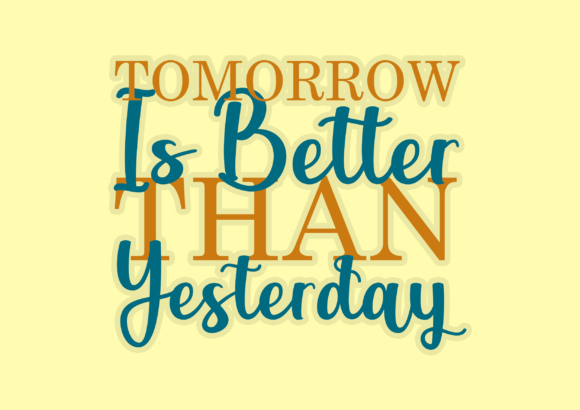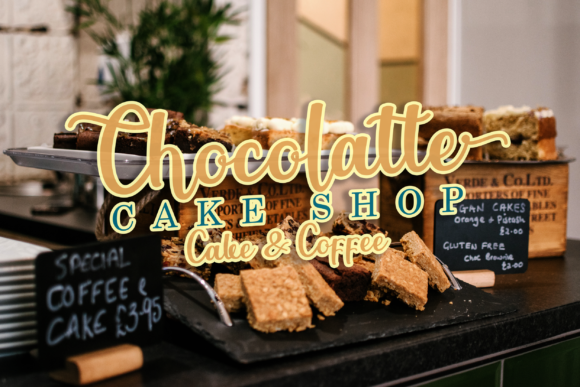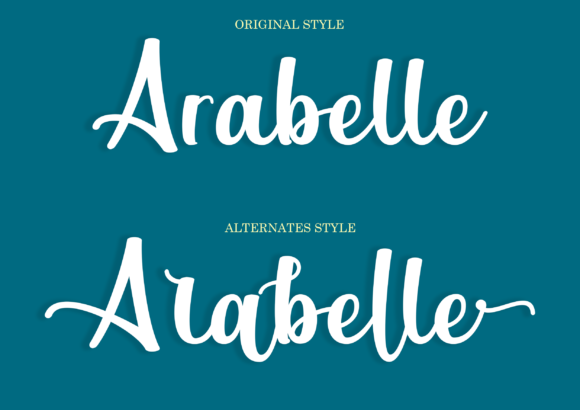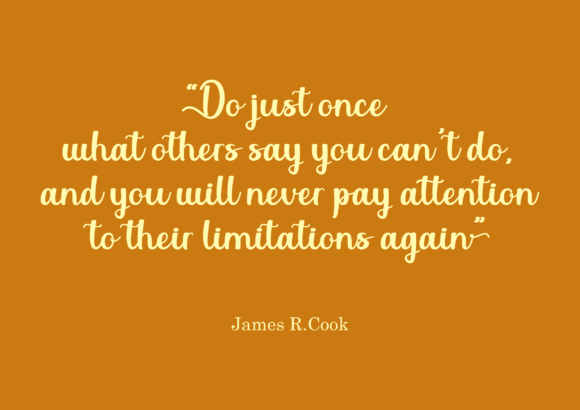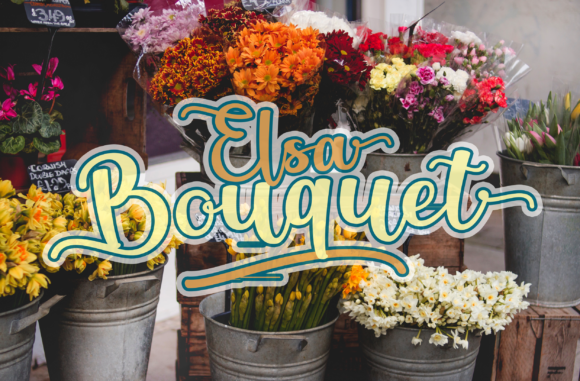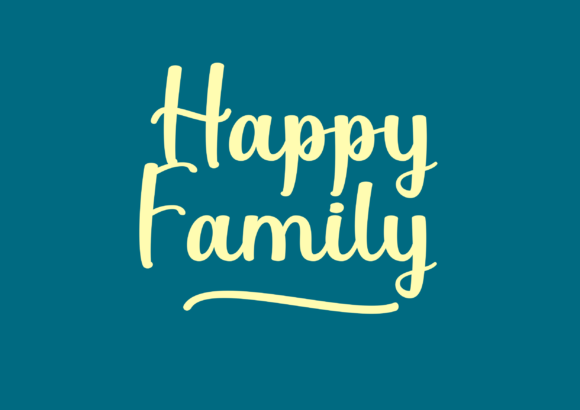
Unlock the Magic of Handwritten Elegance
Have you ever stared at a blank canvas, waiting for inspiration to strike? That’s exactly where I was when I first laid eyes on the Bhellvast Font. Its delicate curves and whimsical flair transported me to a world of vintage charm and sophistication. As a designer, I know I’m not alone in my quest for the perfect font to elevate my DIY projects.
That’s where the Bhellvast Font comes in – a meticulously crafted handwritten font that combines timeless elegance with authentic calligraphy. Its unique character is sure to add a touch of personality to any design, making it a valuable addition to any designer’s toolkit. Whether you’re creating invitations, signs, or even social media graphics, this gorgeous typeface is sure to bring your vision to life.
Bhellvast Font Key Features
- Unique Characteristics: Bhellvast Font features a unique blend of modern and elegant designs with subtle rounded edges and geometric shapes.
Bhellvast Font Review
I’ve had the chance to work with the Bhellvast Font, and I must say it’s a unique addition to any design project. ✨ One of the things that stands out to me is its elegant and sophisticated aesthetic, making it perfect for high-end branding or luxury products.
Here are some of the key things that work well:
- ✨ Elegant and refined feel, great for high-end branding
- ✨ Wide range of language support, making it a versatile option
- ✨ Smooth and consistent line weights, perfect for creating a cohesive look
- ⚠️ Limited script and decorative styles, which might limit its use in certain contexts
- ⚠️ Some users may find the font’s elegance to be overly formal or stuffy
- ⚠️ Not ideal for use in digital products where legibility is paramount
Overall, I think the Bhellvast Font is a solid choice for designers looking to create a sophisticated and refined aesthetic. While it may not be suitable for every project, it’s definitely worth considering for those that require a high-end feel.
To get the most out of Bhellvast Font, use it for:
- Headings and titles for a unique, eye-catching look.
- Emphasizing key points or highlights in a design.
- Creative projects that require a distinctive, handwritten feel.
Experiment with different font sizes, colors, and styles to achieve the desired effect.
Alternatives to Bhellvast Font
Oswald is a sans-serif font known for its geometric shapes and clean lines, making it ideal for use in digital media, such as websites and mobile applications. It’s a great choice for titles and headings where you want to convey a sense of modernity and sophistication. Oswald is a more versatile font compared to Bhellvast, which is more suited for decorative purposes.
Playfair Display is a luxurious serif font designed for use in high-end branding and publishing. Its elegant and refined aesthetic makes it perfect for creating a sense of sophistication and luxury. While Bhellvast has a more whimsical and playful feel, Playfair Display is more formal and polished.
Great Vibes is a modern script font that’s perfect for creating a sense of elegance and sophistication. Its fluid lines and organic feel make it ideal for use in branding, packaging, and advertising. Great Vibes is more legible and easier to read compared to Bhellvast, which can be more challenging to decipher.
Bebas Neue Font
Bebas Neue is a modern sans-serif font that’s inspired by the classic sans-serif fonts of the 1920s. Its clean lines and geometric shapes make it perfect for use in digital media, such as websites and mobile applications. Bebas Neue is more versatile and easier to read compared to Bhellvast, which is more suited for decorative purposes.